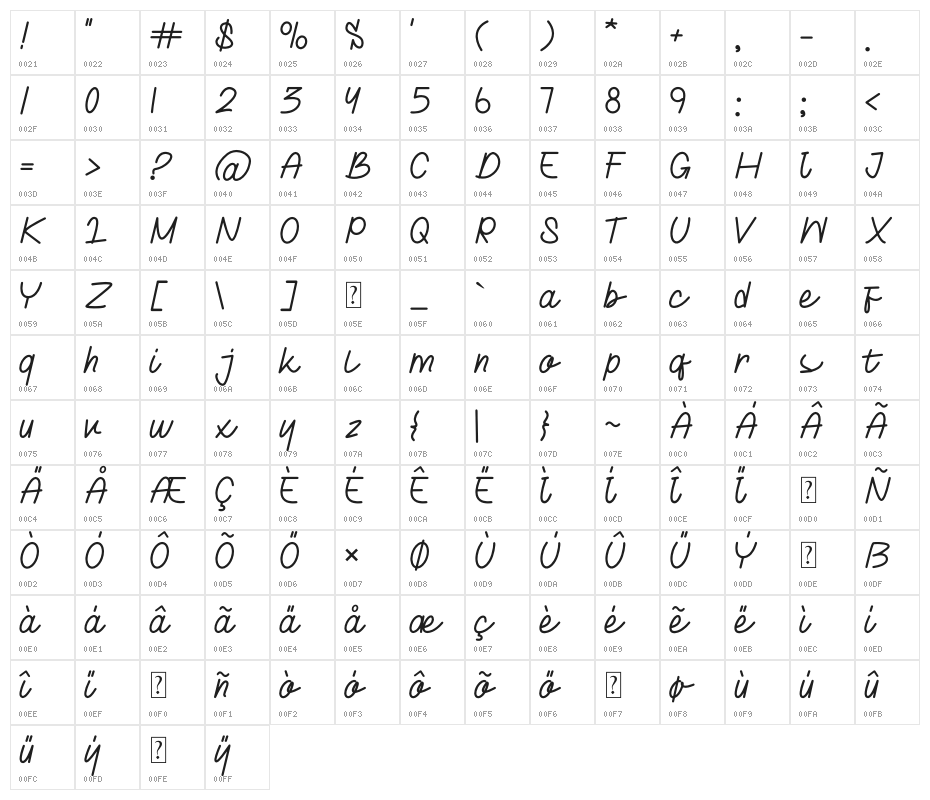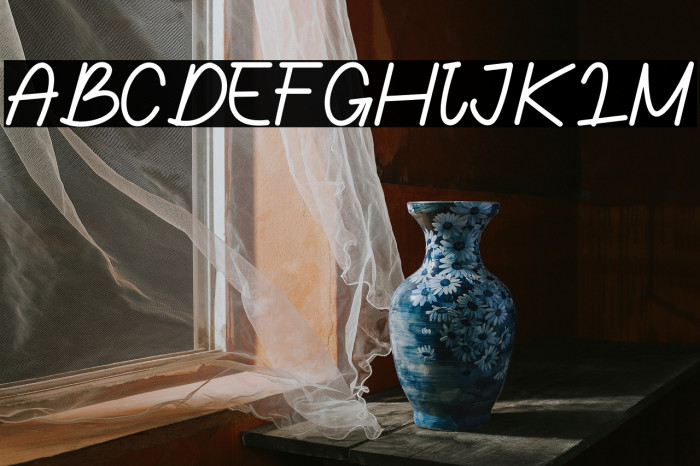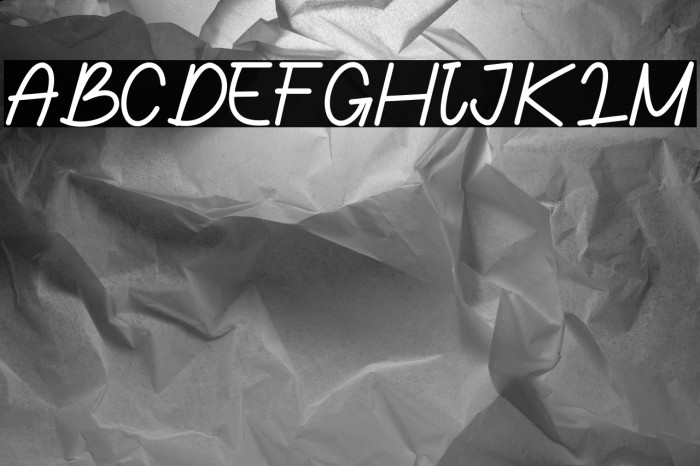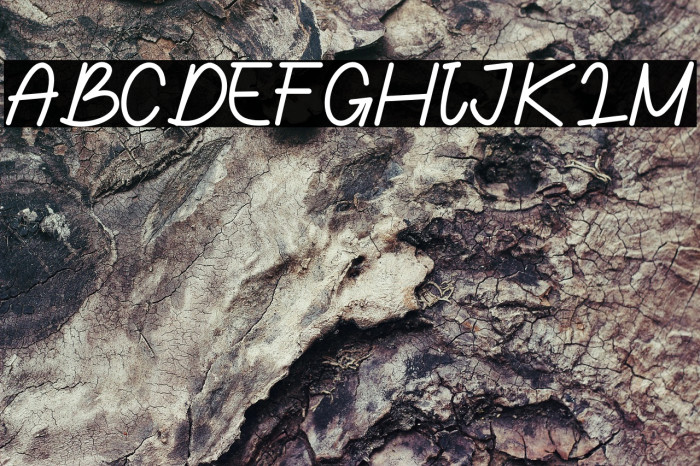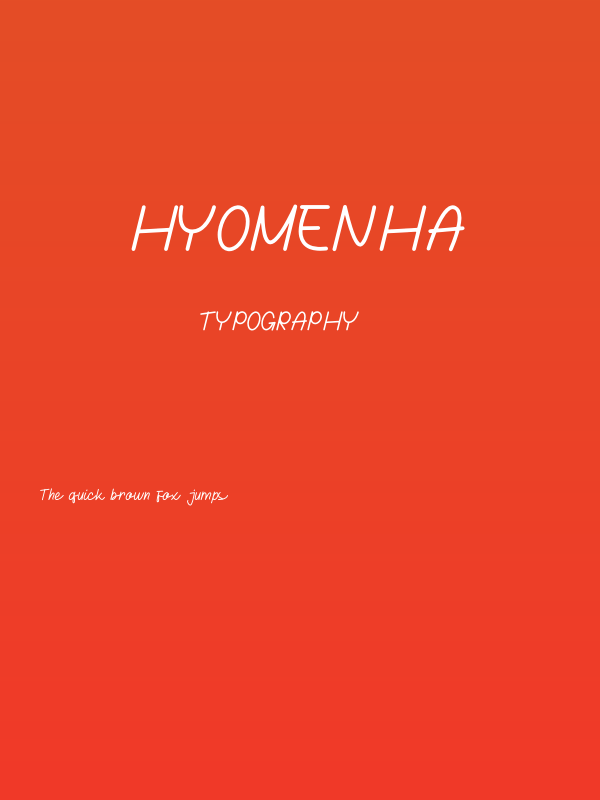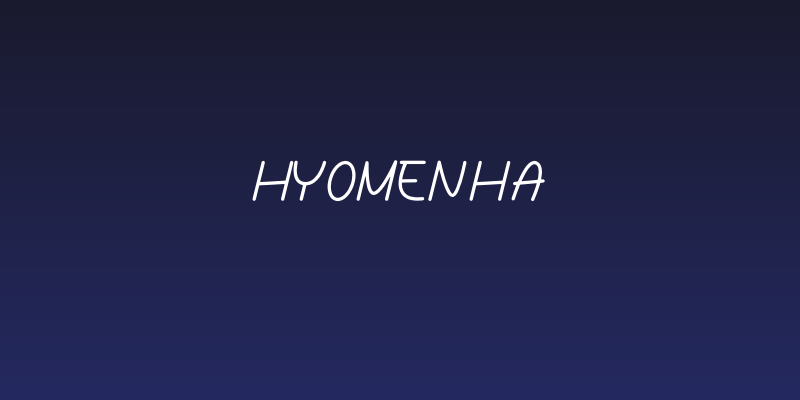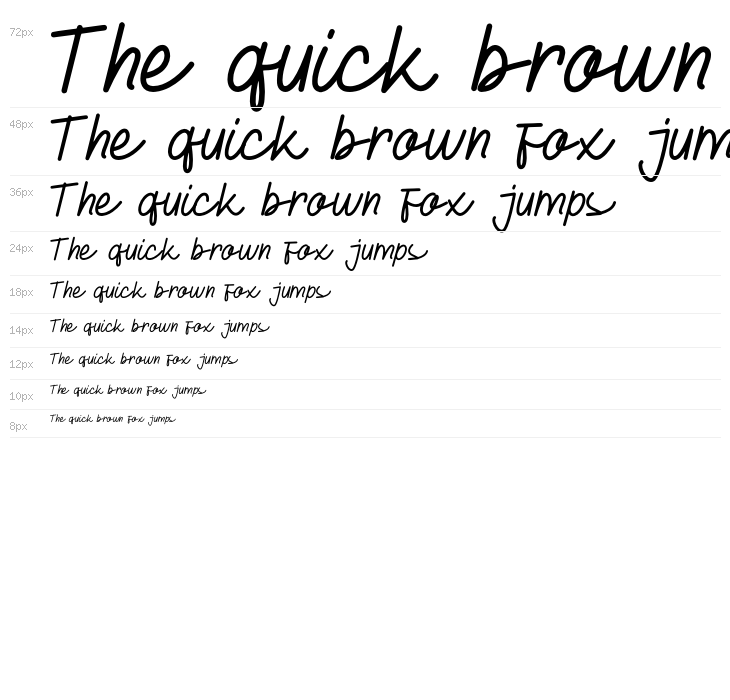
Hyomenha Font
Hyomenha Description
This font features a playful, handwritten style with smooth, flowing lines that give it a casual and friendly appearance. The uppercase letters are slightly slanted, maintaining a consistent height and width, while the lowercase letters exhibit a more pronounced slant, adding to the dynamic feel. The numerals are well-proportioned, matching the overall style of the alphabet. Special characters are included, maintaining the same playful aesthetic. This font is ideal for projects that require a personal touch, such as invitations, greeting cards, or informal branding. Its legibility and charm make it suitable for both digital and print media.
| Use Case | Headlines, Informal text, Personal projects |
| Proposed Projects | Ideal for invitations, greeting cards, informal branding, and personal projects. |